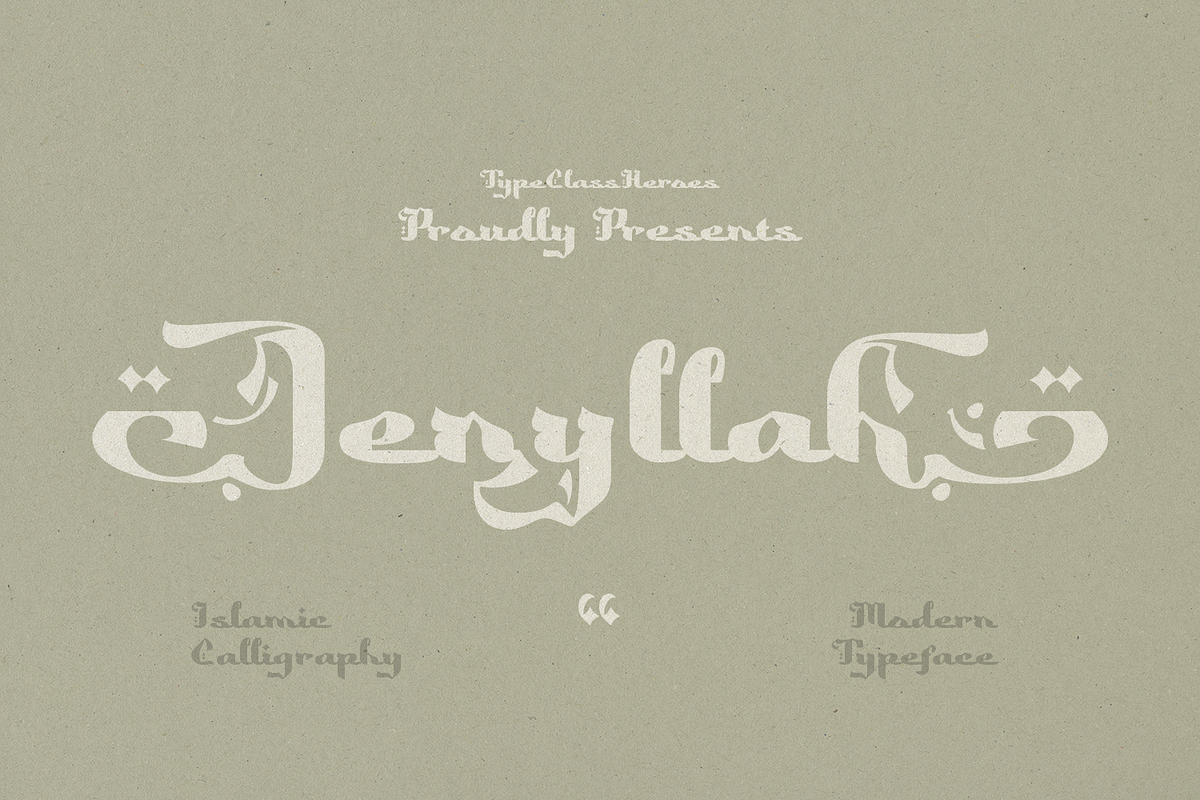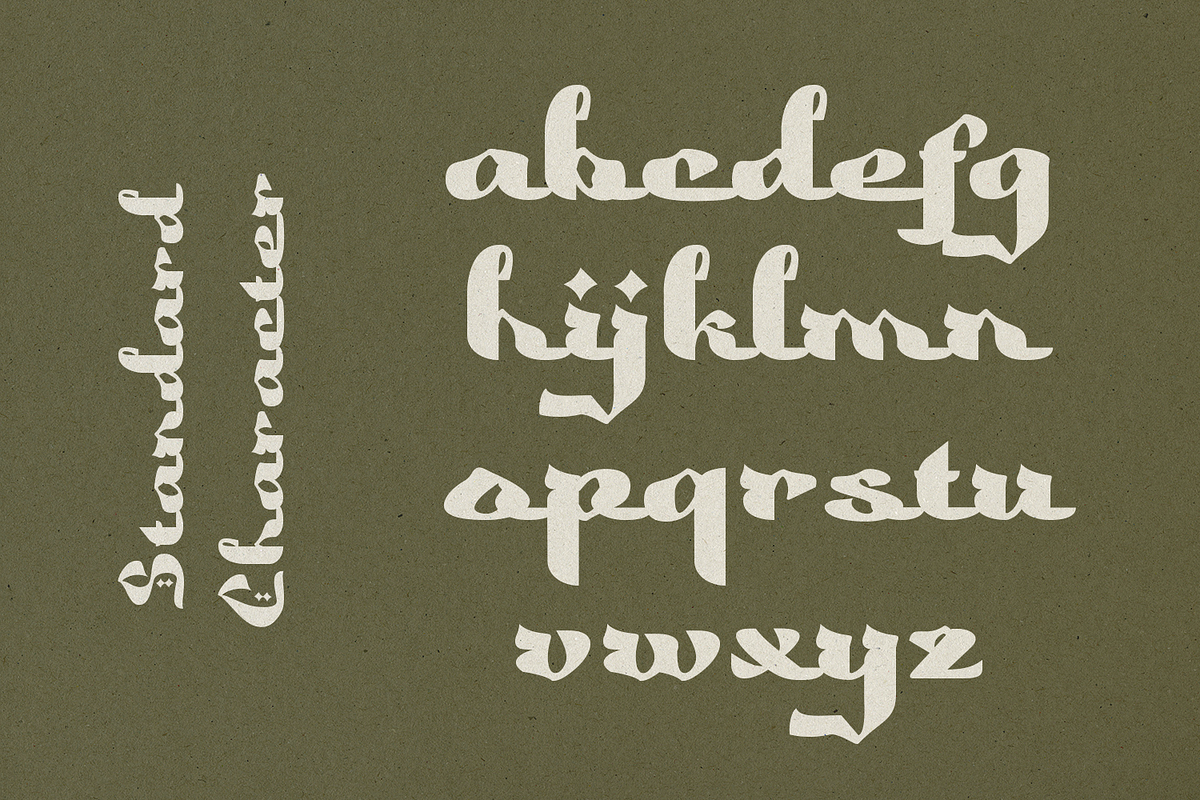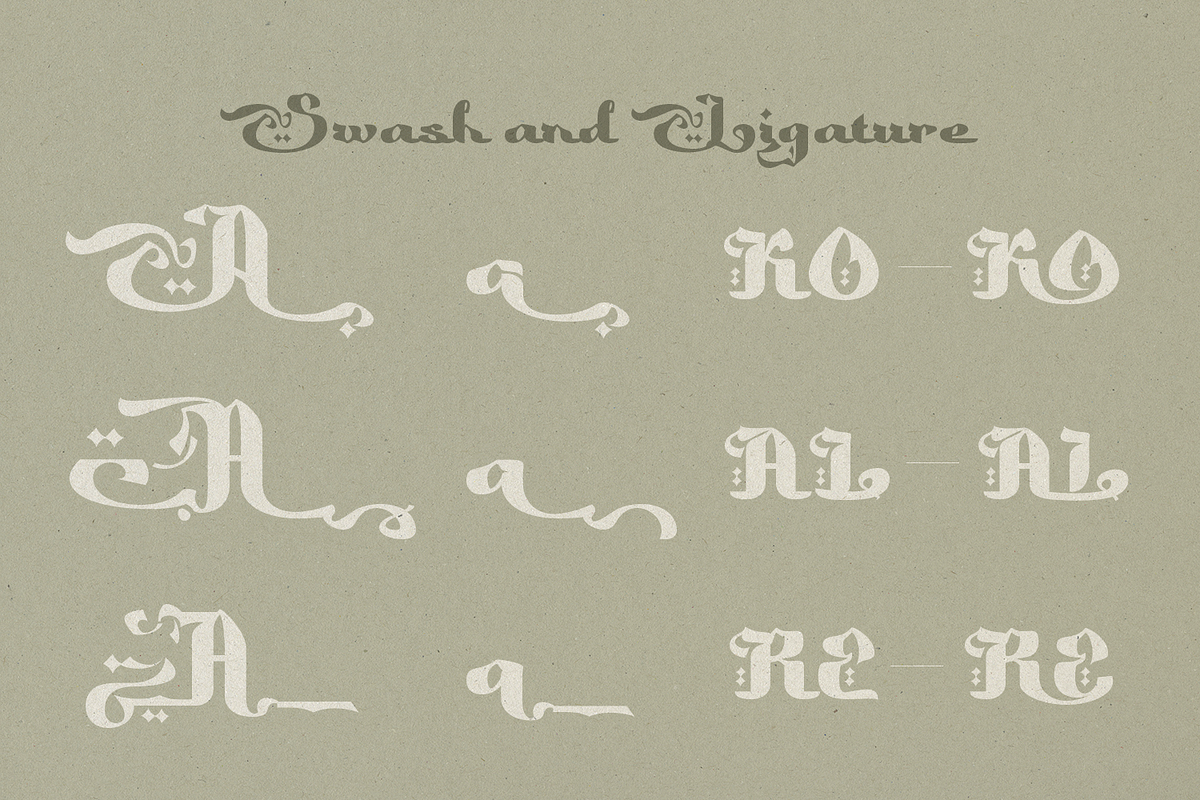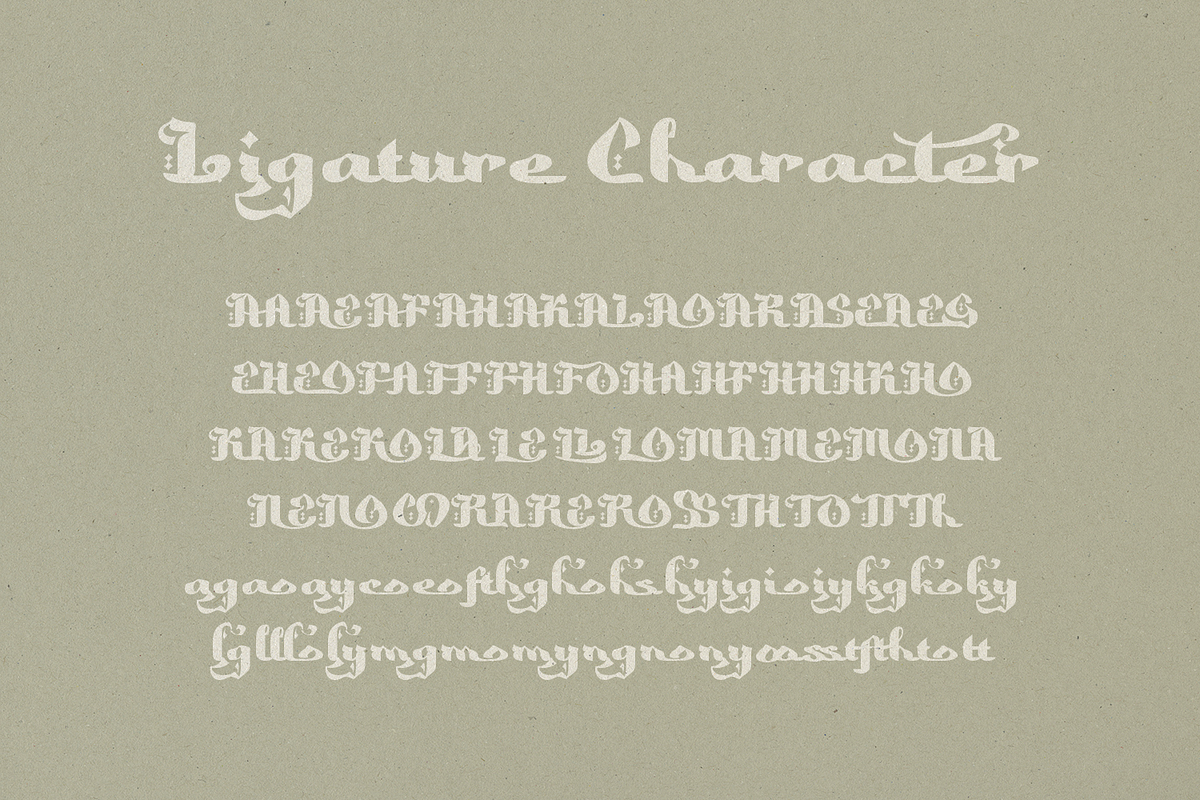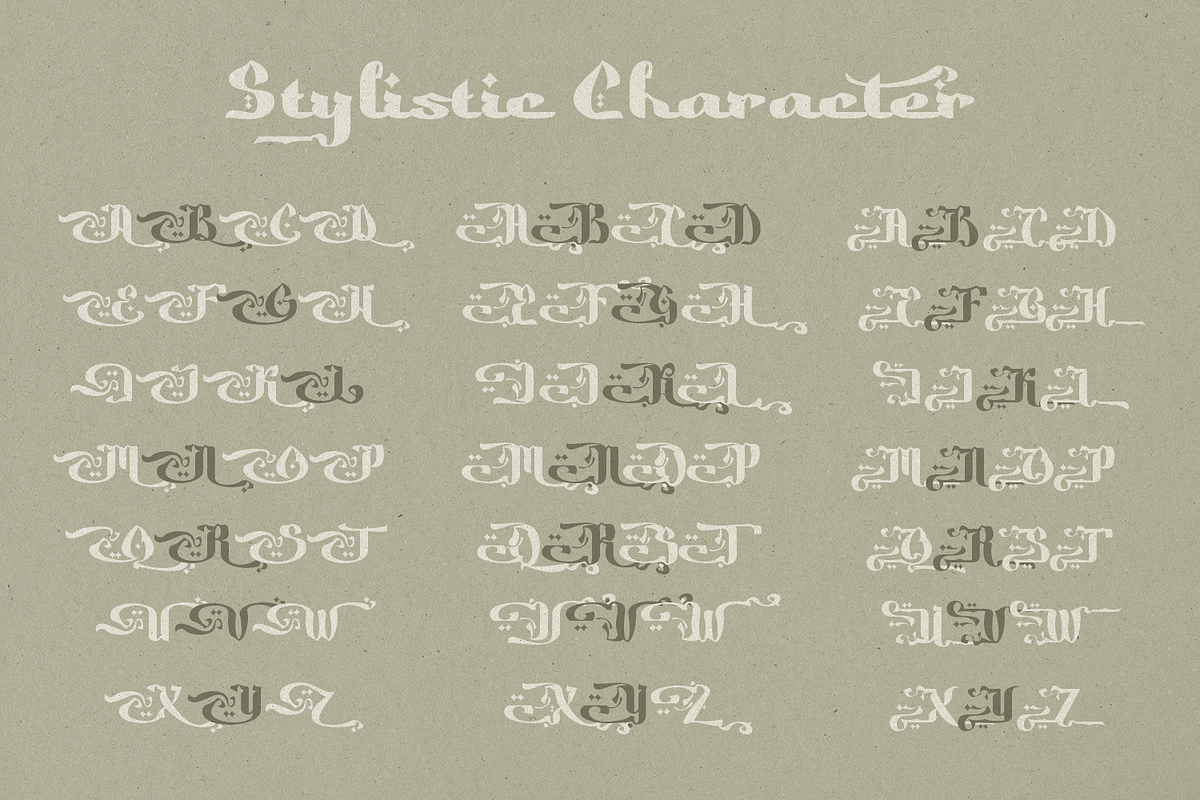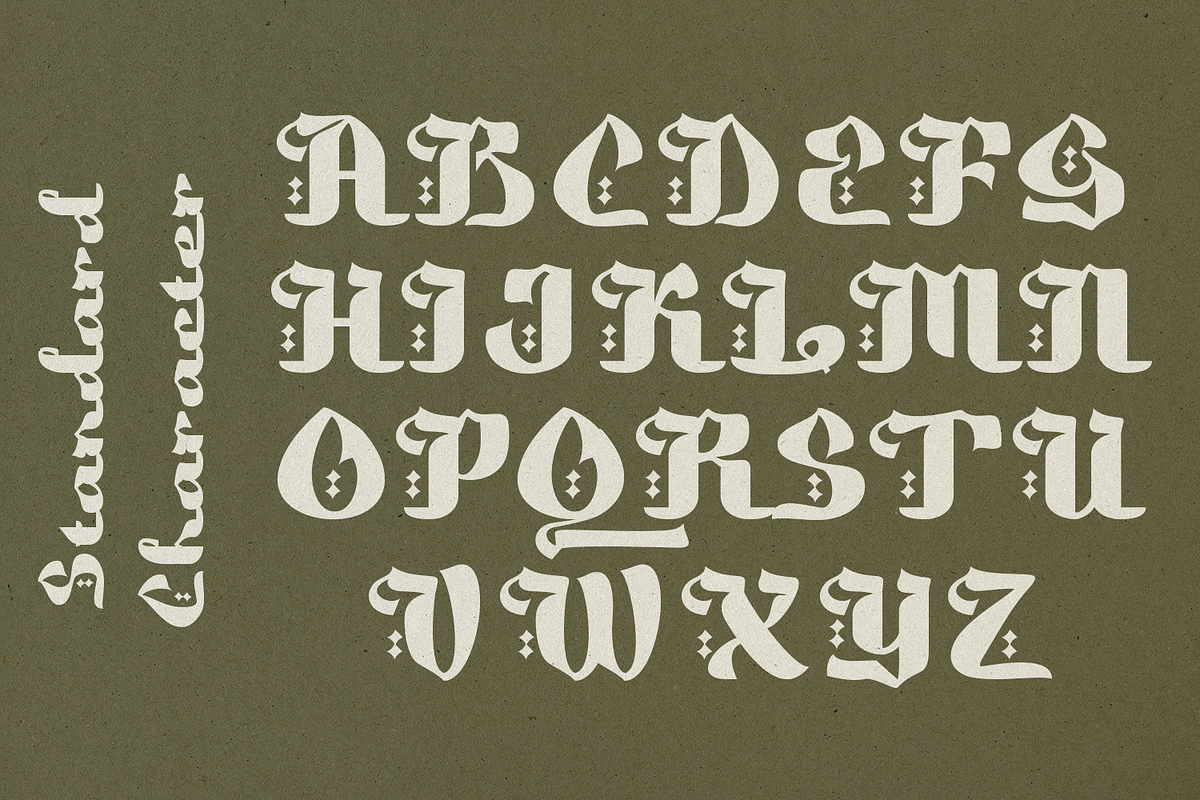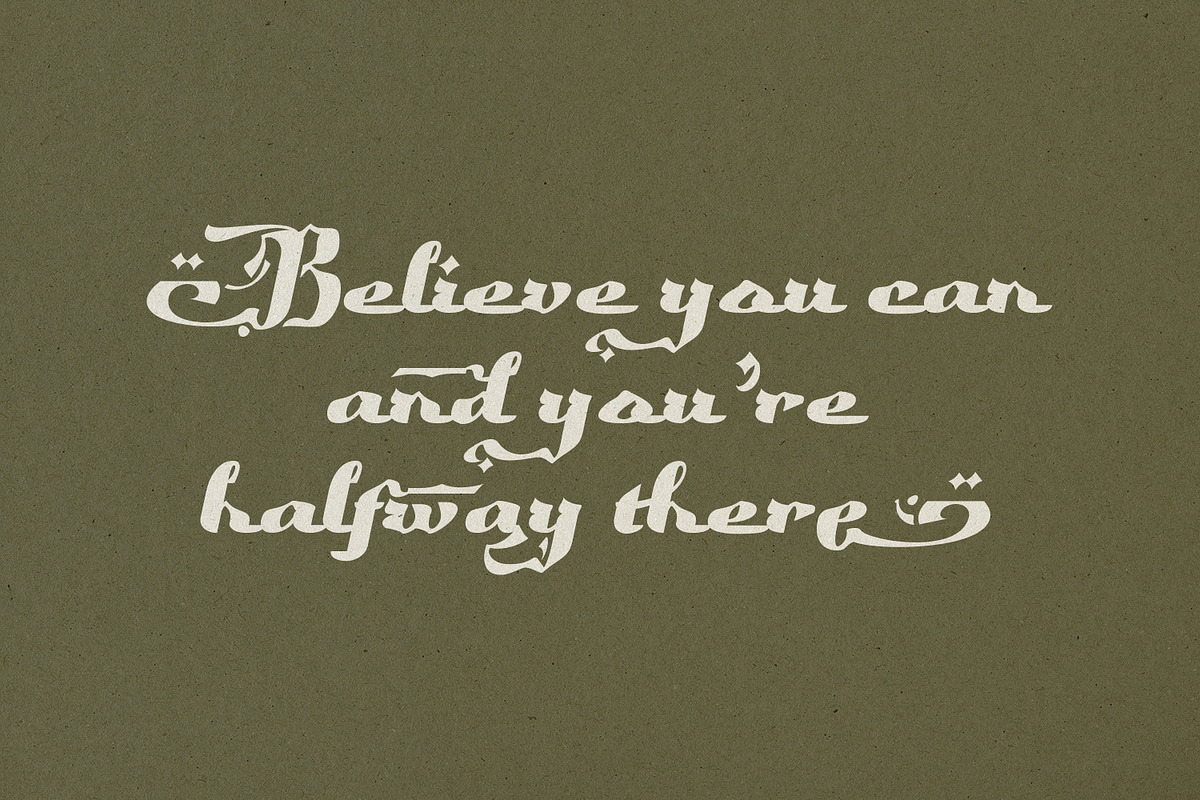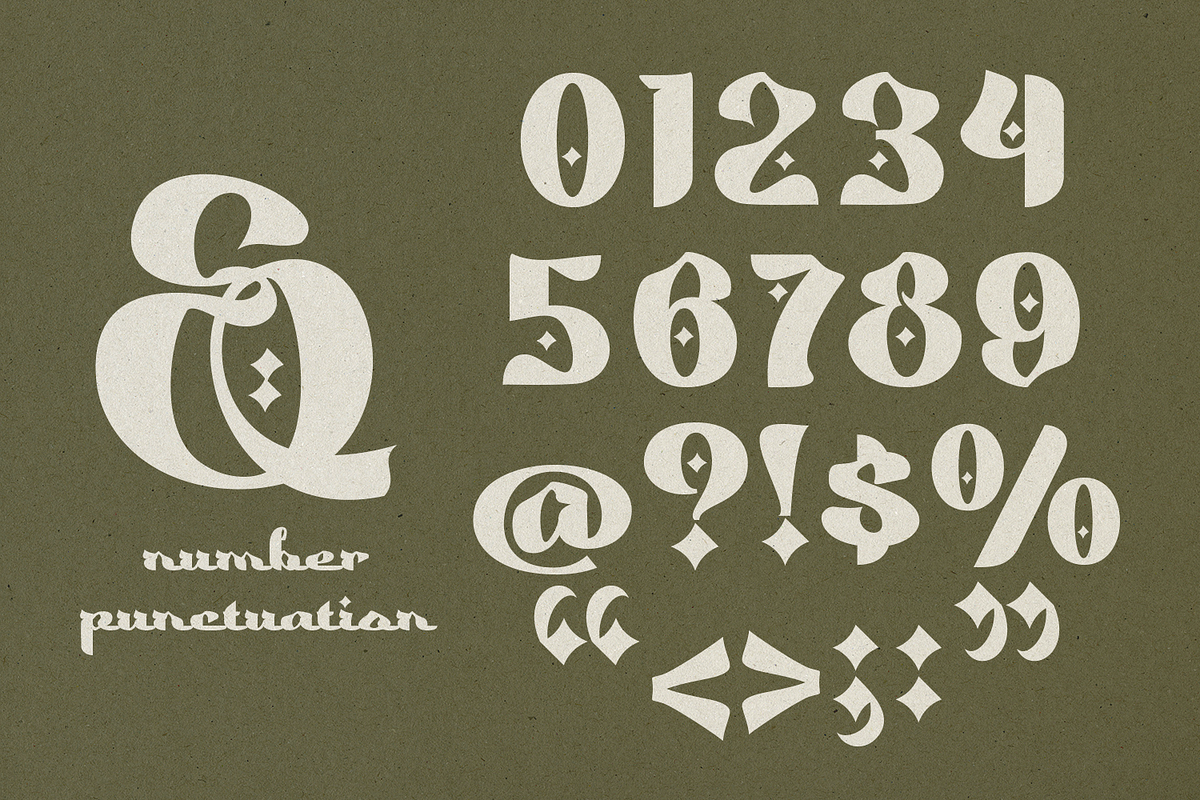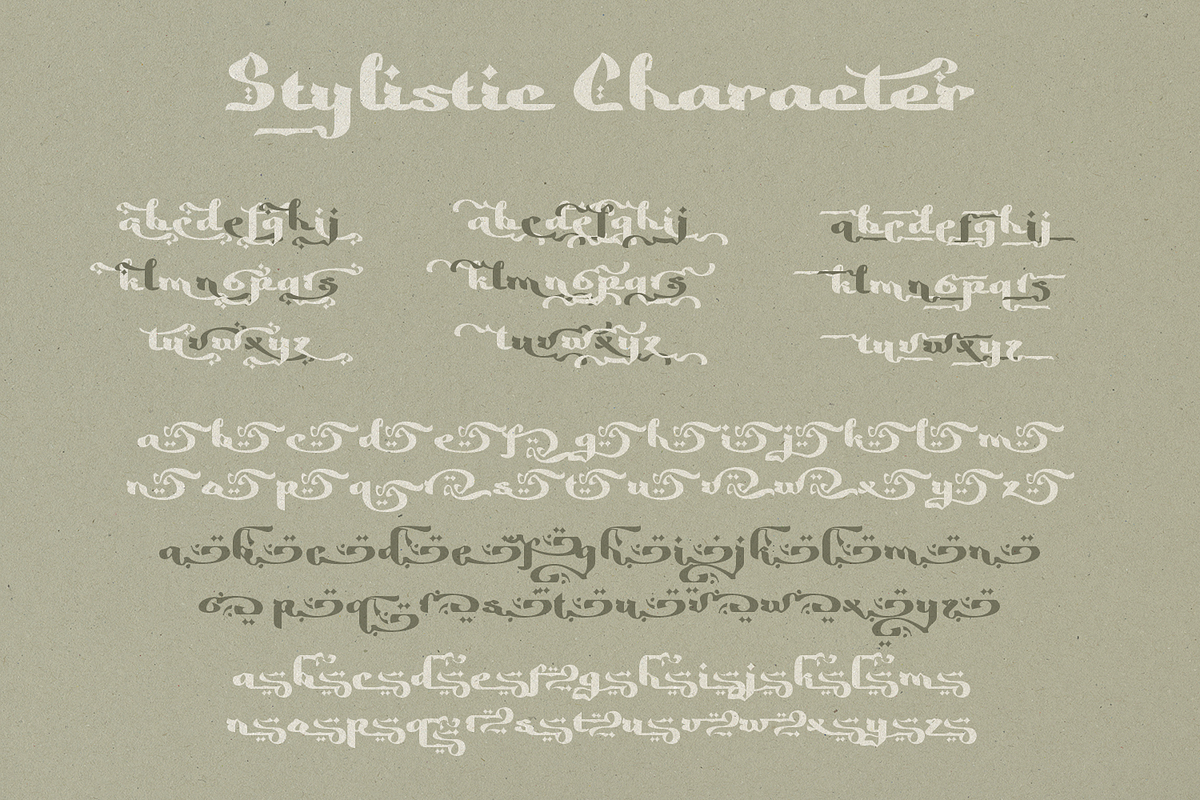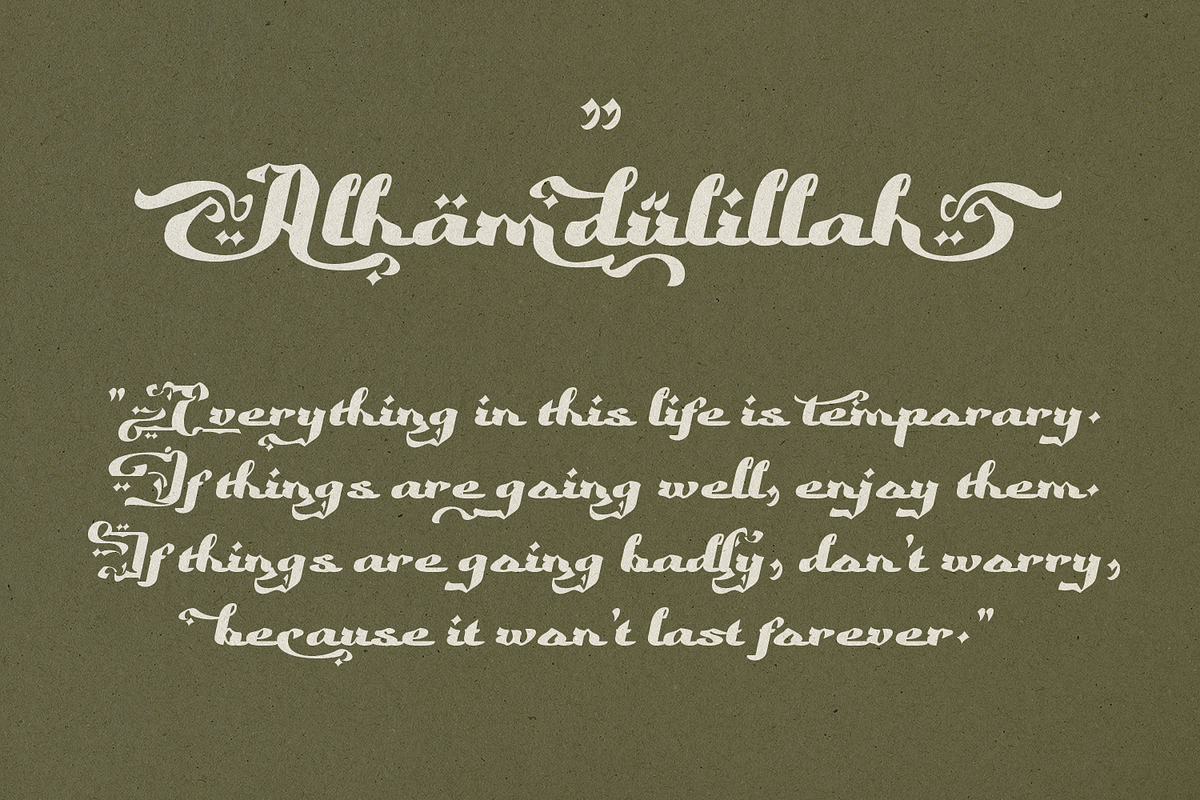
Jenyllah - Islamic Calligraphy
Introducing Jenyllah, this font is inspired by the beauty of typography and the nuances of classic Arabic calligraphy, combined with modern decorative touches. It's letterforms feature ornamental curves, elegant details, and distinctive Islamic elements, creating a luxurious, artistic, and unique feel. This font is ideal for Islamic-themed designs such as brand logos, wedding invitations, halal product packaging, fashion, Ramadan decorations, and even elegant Middle Eastern-inspired visual identities.
Number & Symbol
International Glyphs
Alternative
Ligature